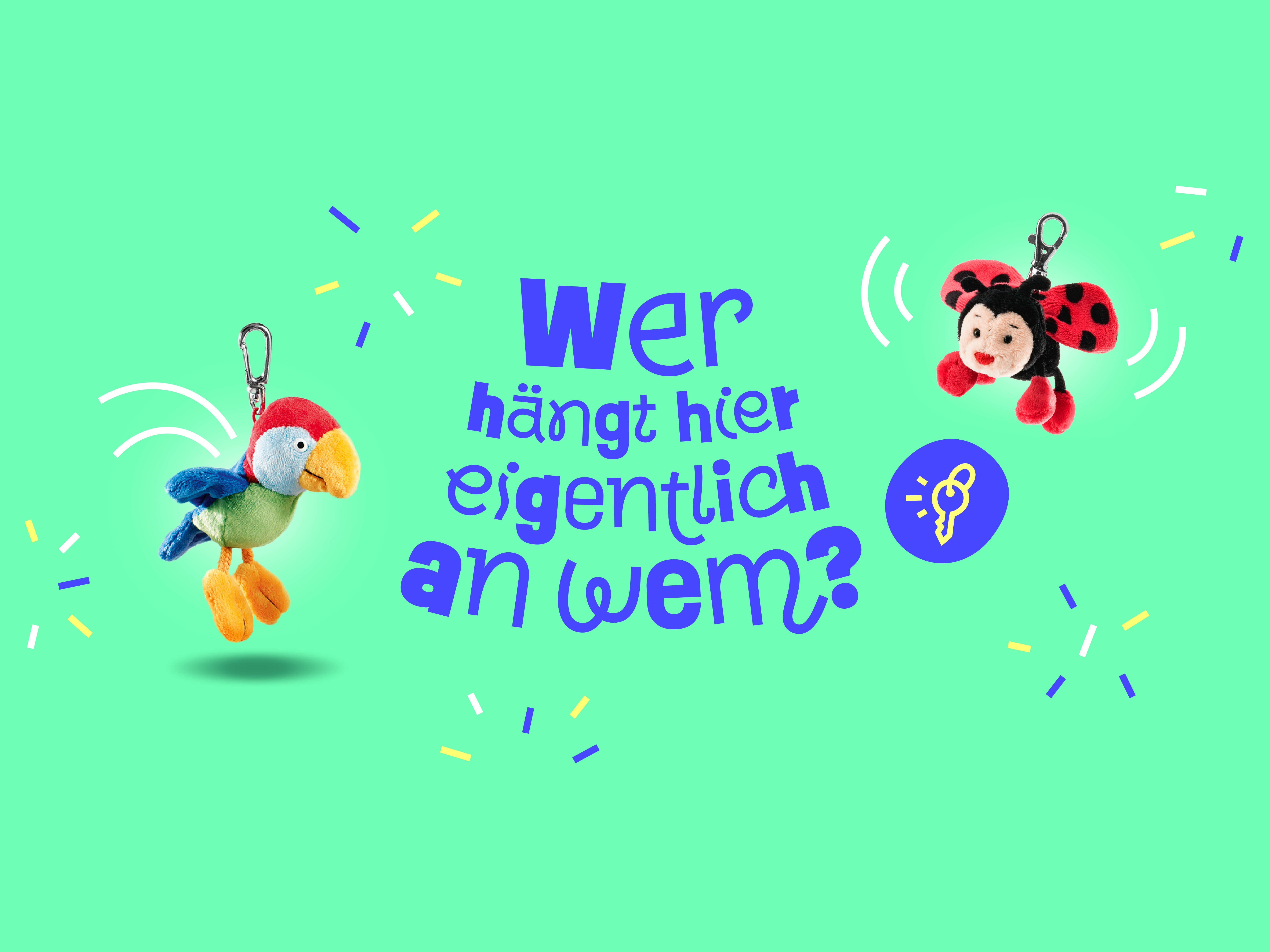
Schaffer Collection
Display Typeface
Schaffer Collection GmbH & Co. KG – famous for stuffed animals – reinvented their marketing strategy and refreshed their whole visual appearance, led by the ingenious Jan Berg from Atelier Grand Berg. Within this project, we came along to collaborate and create a very individual and playful typeface to express the illustrative style.
Not just noodles!
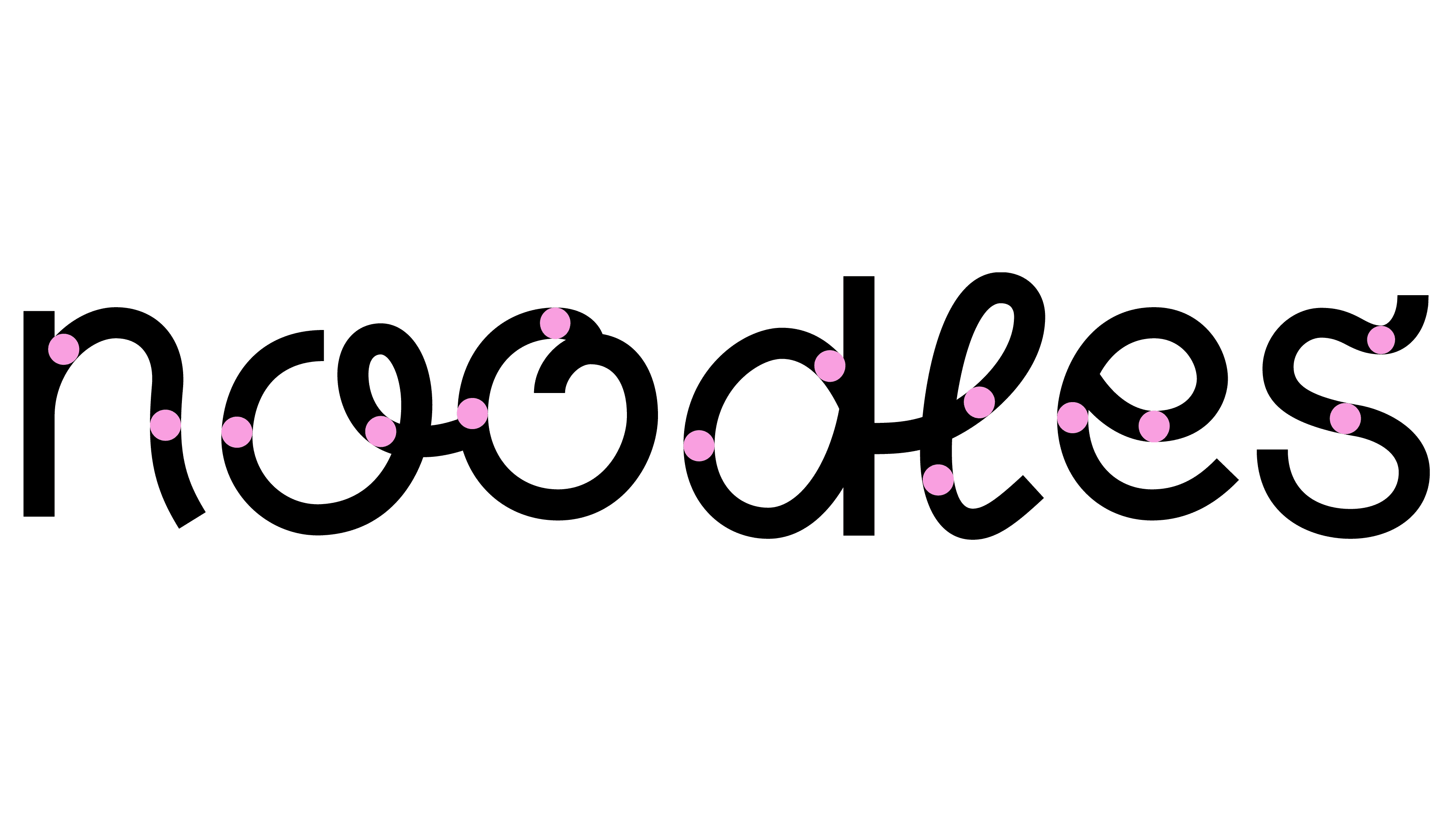
When it comes to typeface design we talk about legibility, font sizes and grayscale. In display typefaces you will often see very geometric not optical corrected work. Let’s say some words for headline need to rather fit the graphic image than a highly readable typefaces. We decided to do some fine tuning anyway and transform Jan’s first noodle-sketches to a better grayscale with junctions on the connecting parts. We added some more ingredients that were spiced up with some optical corrections to go along with the partner typeface. – Bon appetite!
One and Two and Three and …
How to create something recognisable and still unexpected? For Schaffer Ribbon we were forced to ask ourselves: How wild should we go? How many glyphs alternatives are needed? Important was to bring in some smart to connected letters, as ligature from the new design of Schaffer Logo.
From we ended up at two alternates for uppercase letters, three okey sometimes four for lowercase letters and some alternates for interpunction. That was easy! But just imagine the work of spacing, kerning and programming to build up the funky typefaces that should work not only with itself. 🤯
Overview of glyph variants
Check out contextual alternates within the Type Tester. No two letters ever look the same. With a little Python code magic, variations switch dynamically as you type. Featuring at least two—and sometimes up to four—versions for each letter, Schaffer Ribbon makes every word feel vibrant and lively.
Schaffer Ribbon in the mix
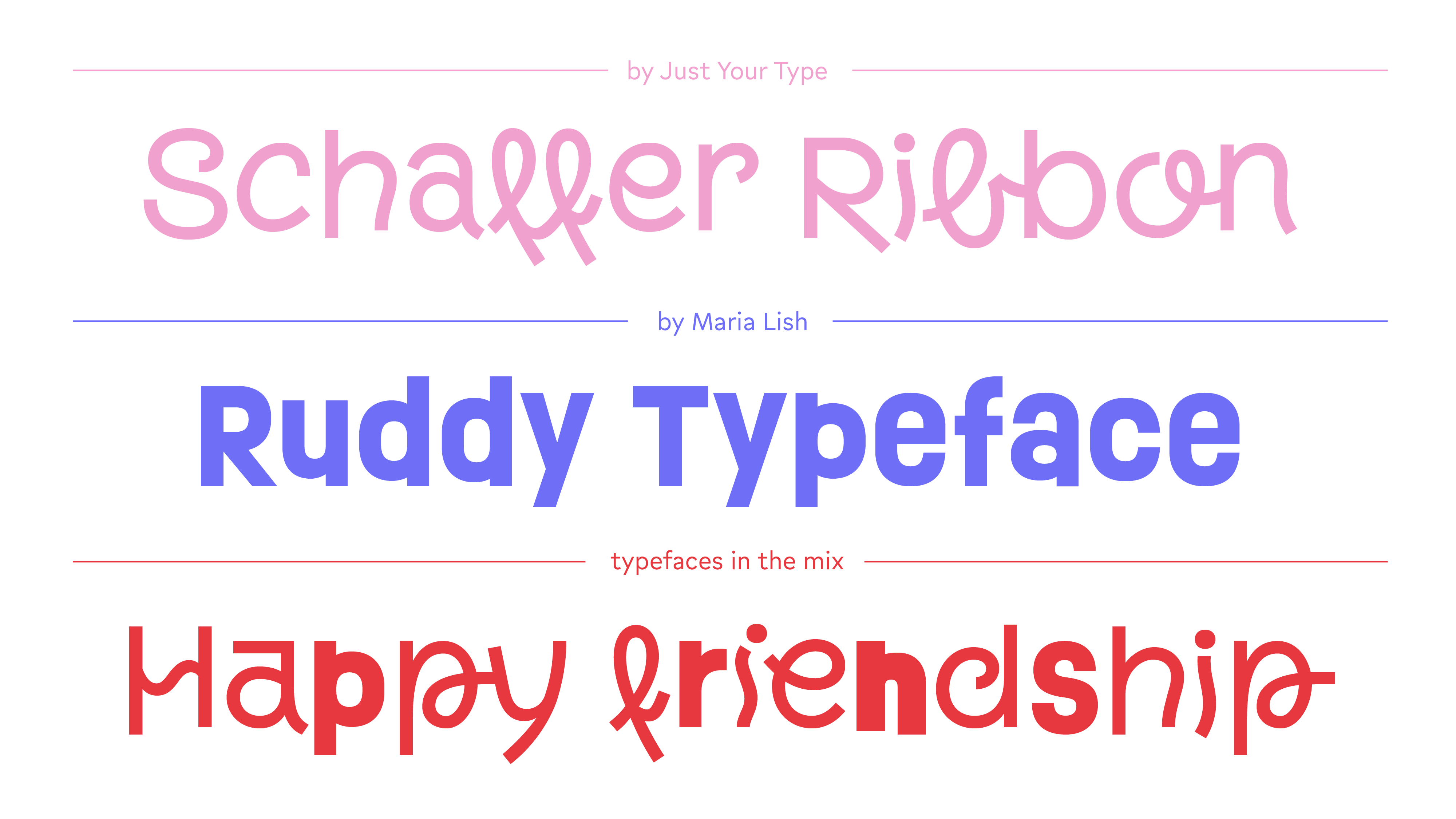
Blending typefaces as wild as jungle animals, as vivid as RGB, and as dynamic as you can envision seemed unbelievable initially, yet proved to be a brilliant concept upon reflection. The existing typeface, Ruddy, known for its playful bounce, required a companion – a new typeface enhancing the illustrative linear style. Ultimately, our new corporate typefaces Schaffer Ribbon and licensed font Ruddy became more than just fonts; they became companions, side by side, occasionally intertwined like holding hands.
Farewell Arial
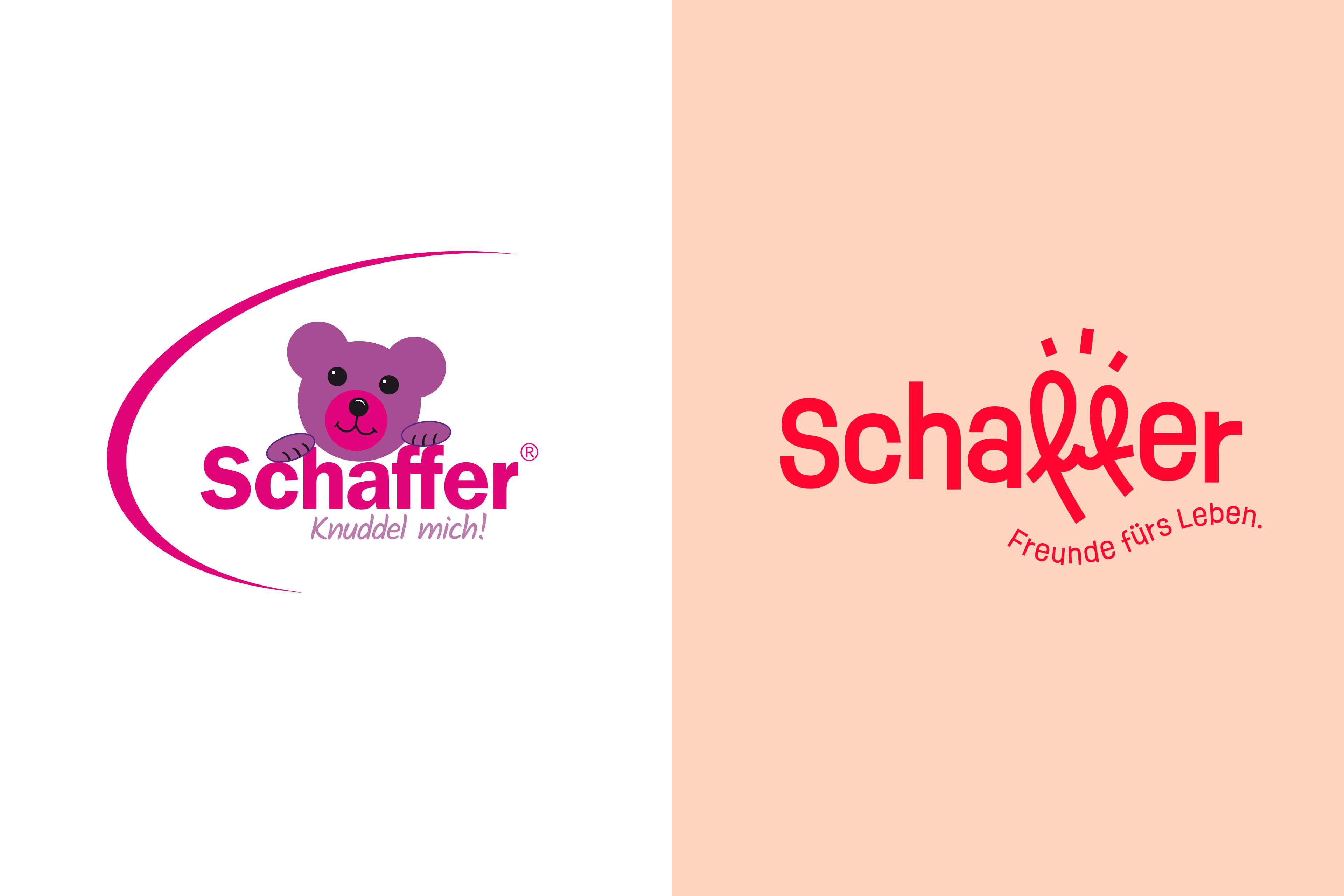
People tend to freak out about using Arial, Helvetica, or Comic Sans as a typeface choice — obviously not ideal for individual branding projects. Nevertheless, we are grateful for previous projects that, from today’s perspective, often seem less well thought through. These examples, once in search of a unique and fitting brand look, create space for something new and exciting.
We’ve learned that it is often exactly these choices that help push projects to become versatile, bold, vibrant and full of personality. Just like the brand Schaffer.
Thanks to Jan the Schaffer Logotype speaks it’s own language without needing a teddy
Meet the Gang
Every Schaffer plush has a name. And now? A tag to match. From Bine to Bolle, Eddi to Luzy – you name it, they’ve got it. Each one proudly wears their name mixed up with our custom Schaffer Ribbon typeface: playful, bold, and full of character.
The new hangtags aren’t just tags. They’re colorful little statements. A name becames a logo, a personality, a moment of joy. Because when a plush has a name, it’s not just a toy, It’s brings story, became a friend.
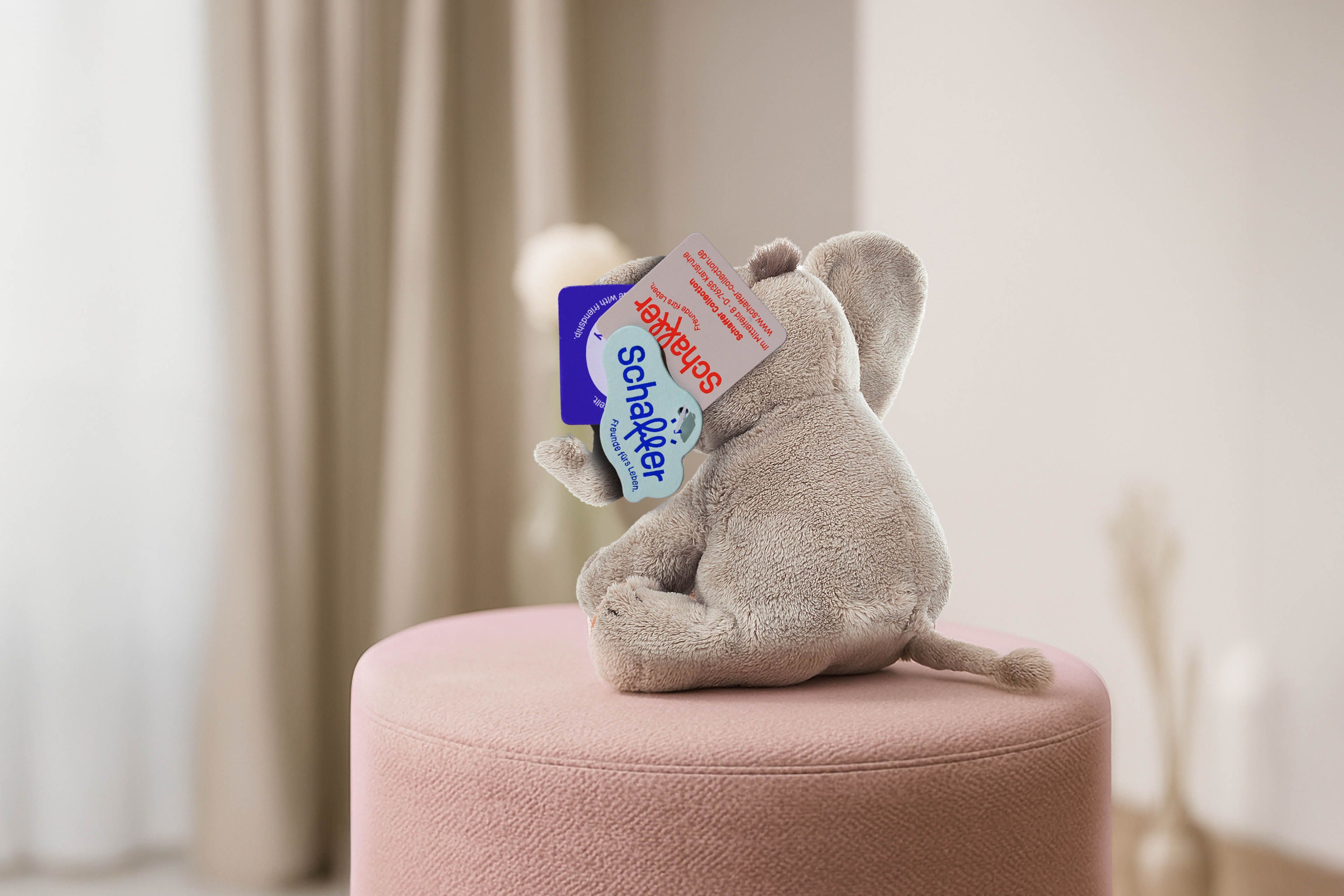
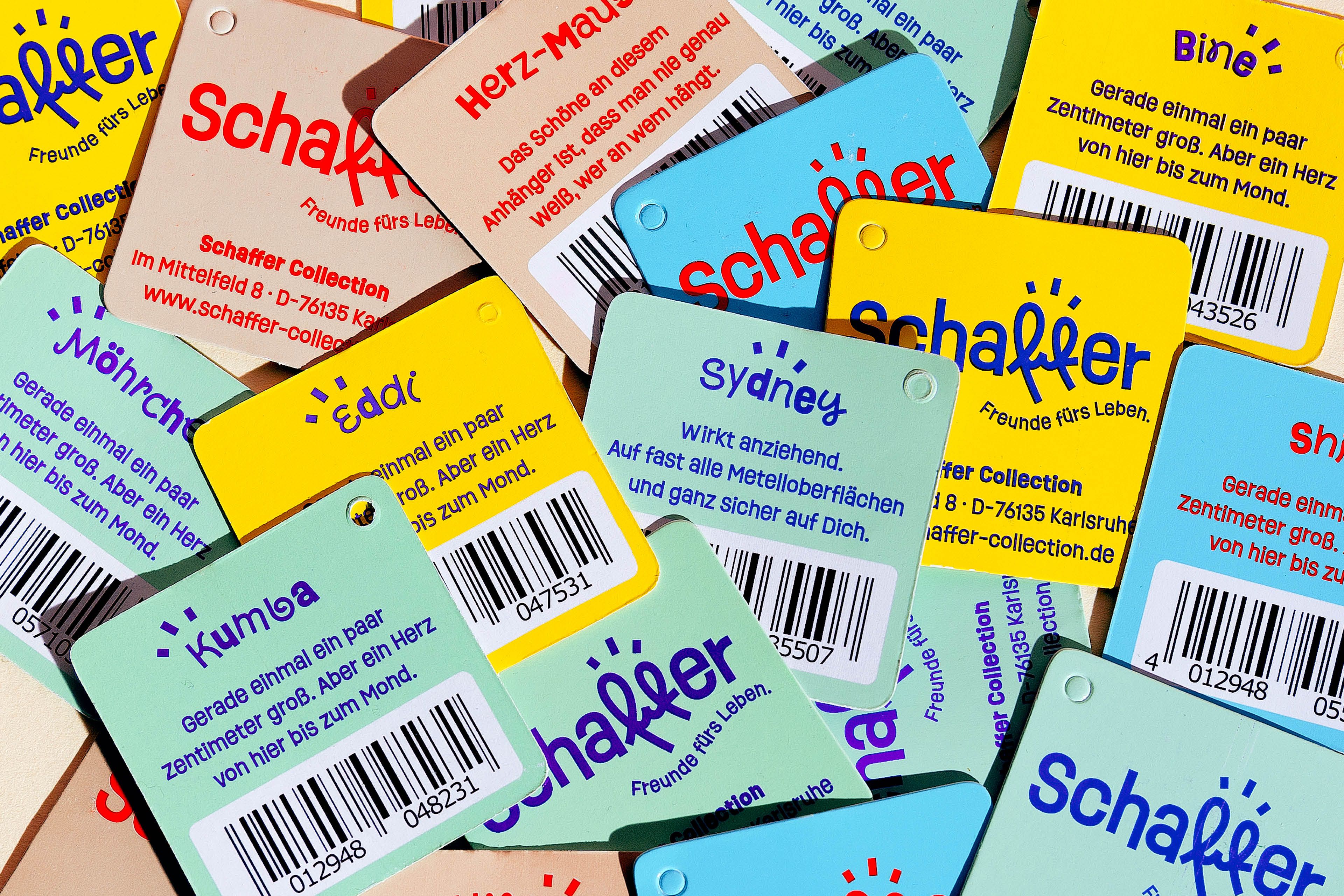
Webfont that waves
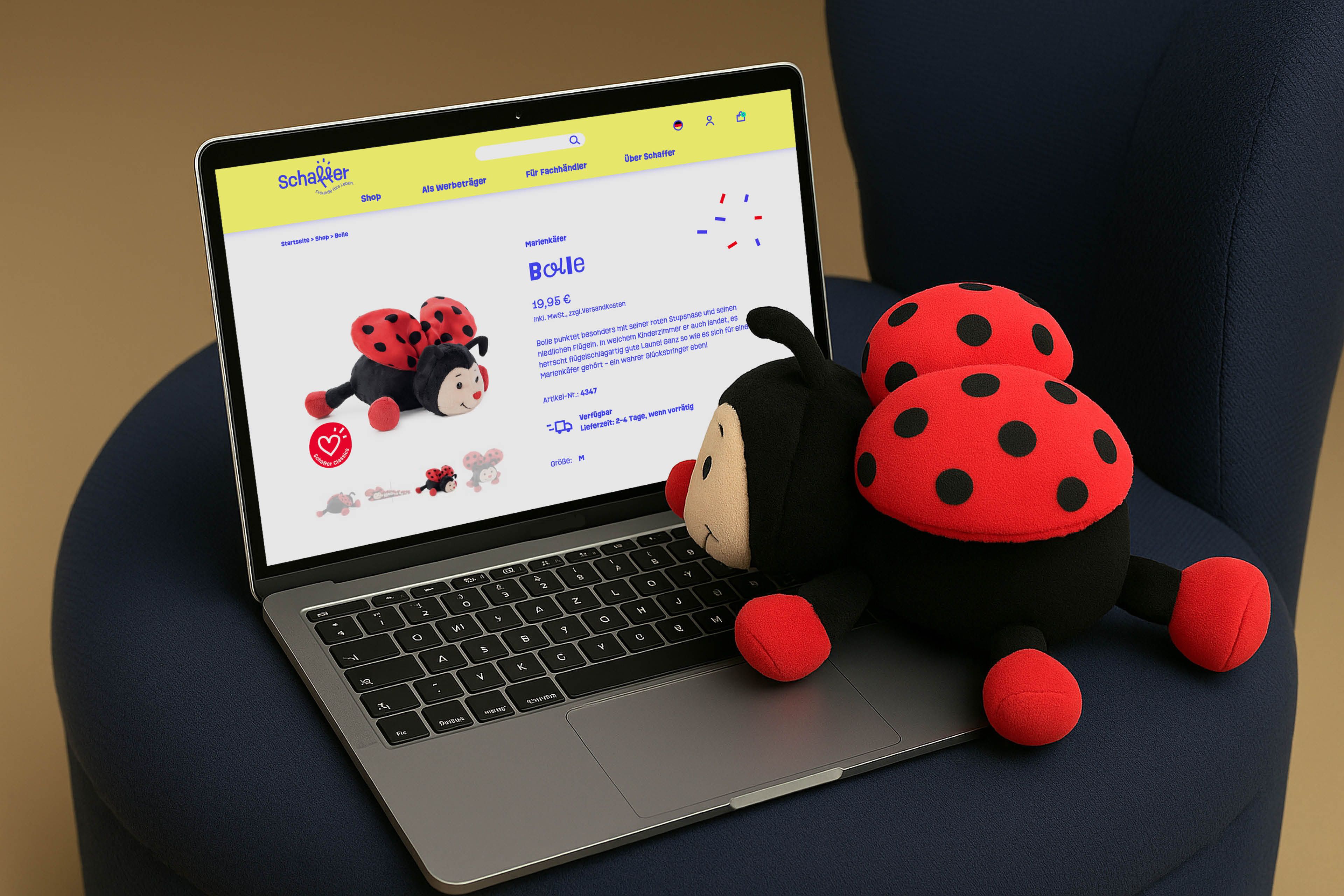
Wow, wow, wow — we were completely blown away when we saw Schaffer Ribbon on the web, holding hands with Ruddy and waving around as if they were sailing on a boat together, confetti bombs bursting everywhere.
Instead of sticking to plain linear text, Jan and his team found a way to bring the same illustrative energy to the screen as they do in print with curved headlines, dynamic pairings with Ruddy and svg animations. We were happy to support Schaffer Ribbon as a webfont, powered by OpenType magic to bring the full swing.
Schaffer Ribbon in action